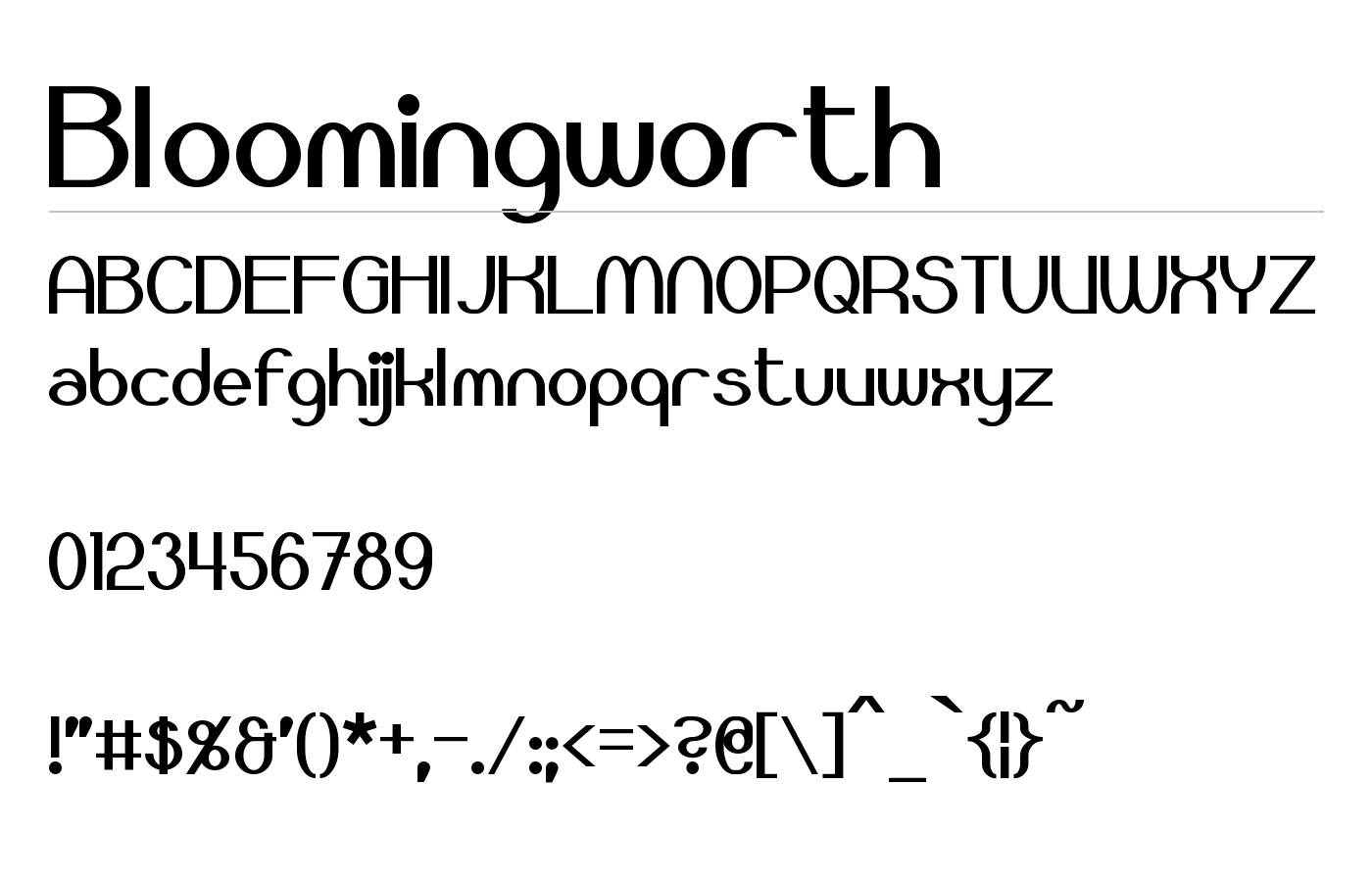
Bloomingworth is a sleek, modern sans serif font with a unique geometric twist, featuring clean lines and a slightly condensed, elegant structure. Its tall x-height and playful yet refined letterforms make it ideal for contemporary branding, editorial headlines, and stylish packaging, lending a sophisticated yet approachable personality to any design. This font stands out with its distinctive shapes and balanced proportions, perfect for conveying modernity with a touch of artistic flair.